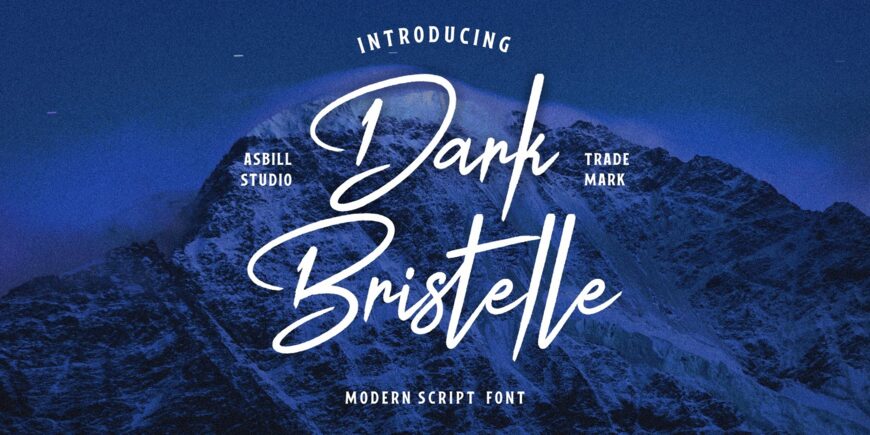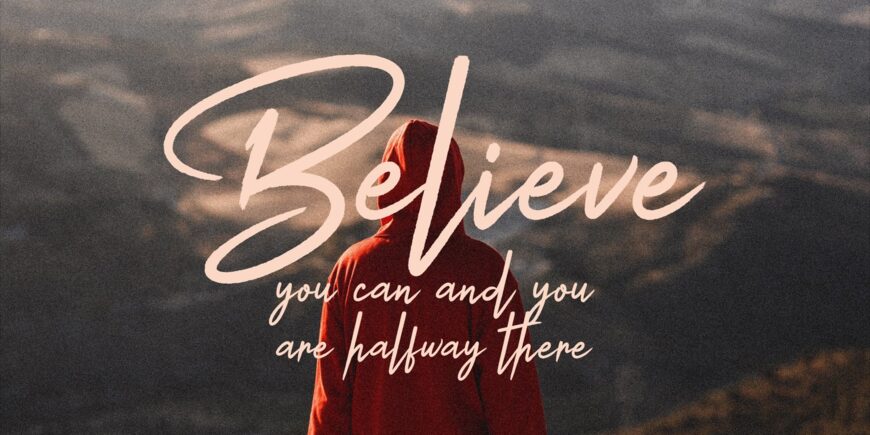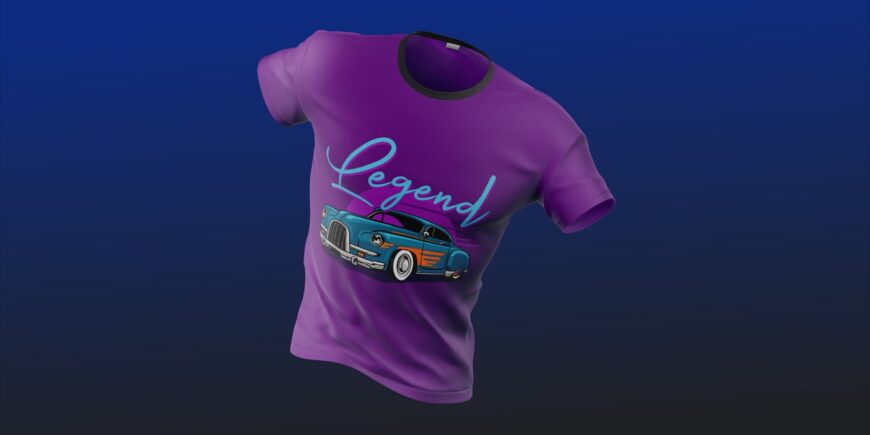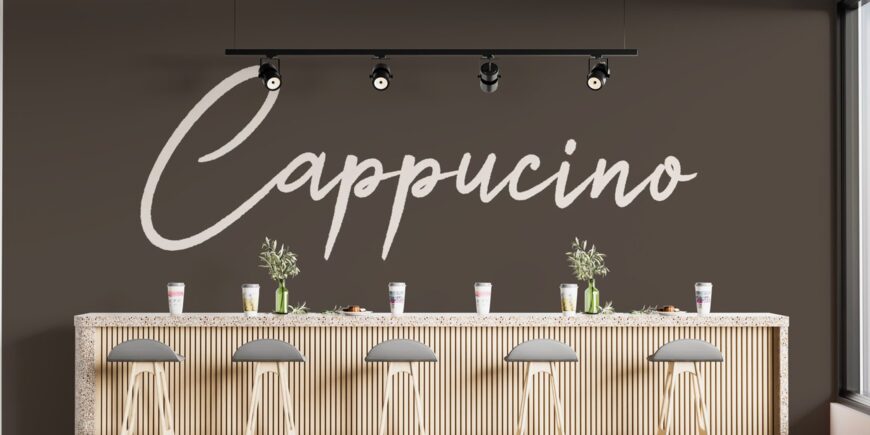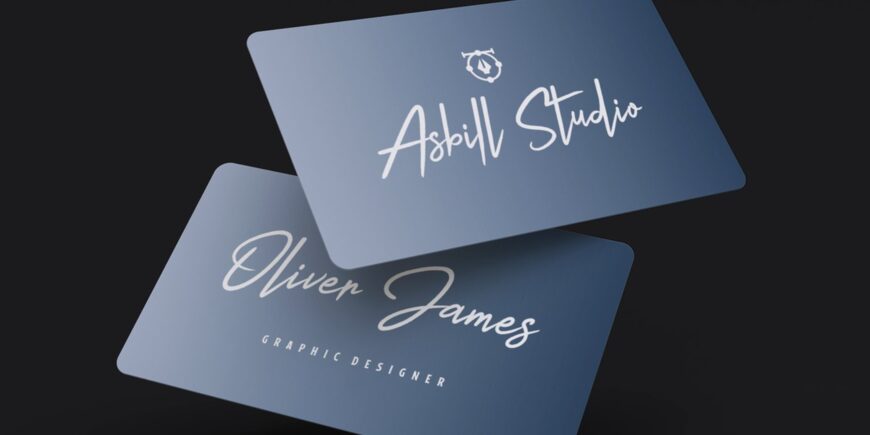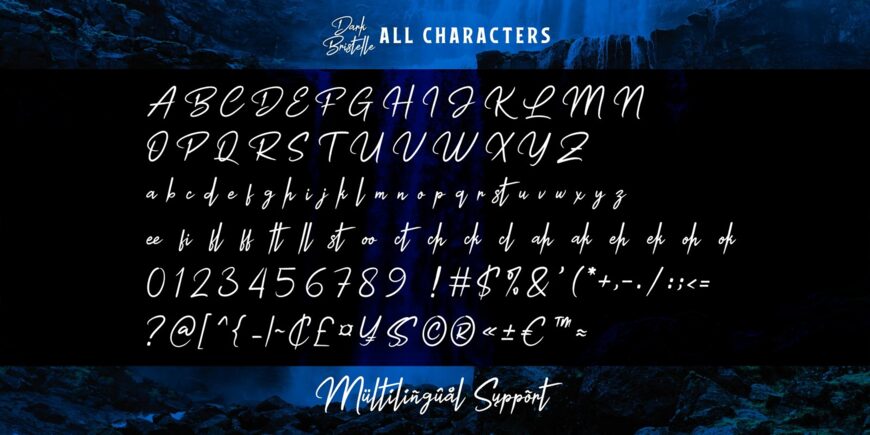
Dark Bristelle Font
Dark Bristelle is a modern script font that combines expressive handwritten strokes with a bold, elegant, and contemporary character. Designed with fluid curves, dynamic letterforms, and natural brush-inspired details, this typeface brings a strong sense of personality and artistic energy to every design.
Its stylish appearance makes Dark Bristelle perfect for creating eye-catching logos, branding identities, product packaging, fashion editorials, photography projects, social media graphics, posters, invitations, and premium promotional designs.